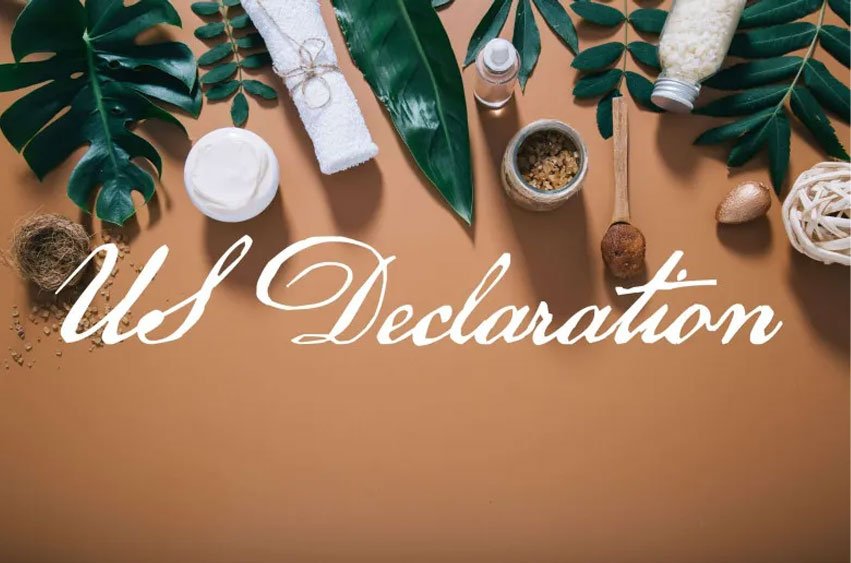
US Declaration Font Tomasz Skowronski created the US Declaration font as a high quality calligraphy font available for free download and personal use.
It includes both uppercase letters and lowercase letters as well as some special characters.